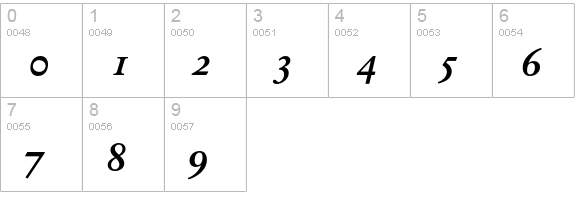
Stempel Garamond Bold Italic Oldstyle Figures is a strong, high-contrast, italic variant in the Stempel typeface family \xE2\x80\x94 well suited to headlines, attention-grabbing titles, and strong calls-to-action.
Stempel Garamond Bold Italic Oldstyle Figures font exudes elegance and sophistication with its classic design and striking bold italic style. The oldstyle figures add a touch of vintage charm to any project, making it perfect for both traditional and modern applications. This versatile font is ideal for editorial design, branding, and any project that requires a touch of sophistication. The best part? Stempel Garamond Bold Italic Oldstyle Figures font is available for free download at FontsMarket.com. Now you can access this timeless typeface without breaking the bank. So why wait? Enhance your designs with the beauty and versatility of Stempel Garamond Bold Italic Oldstyle Figures font today!